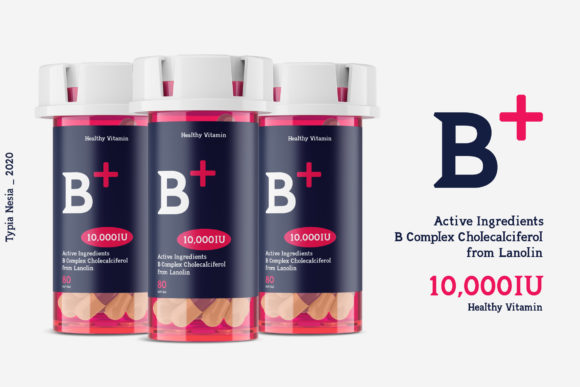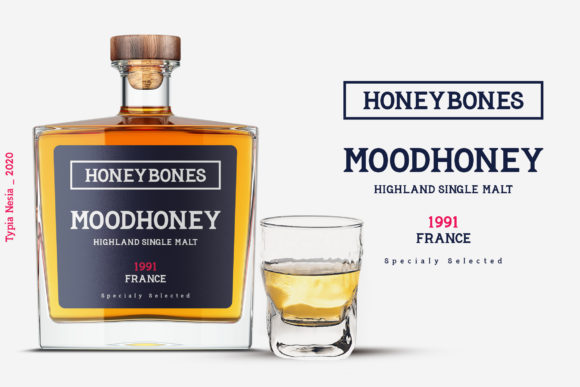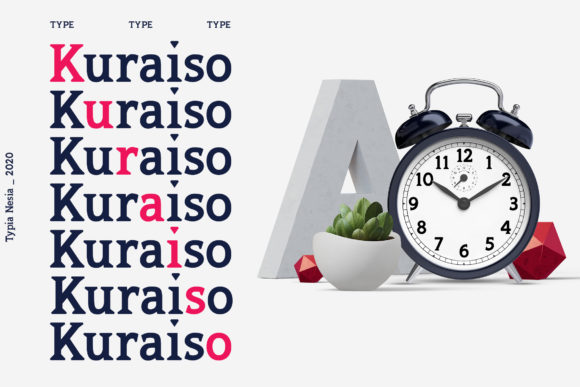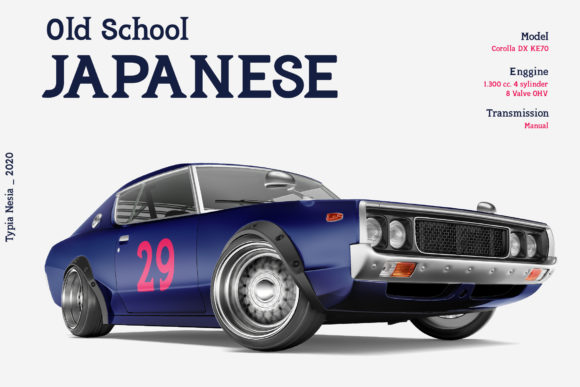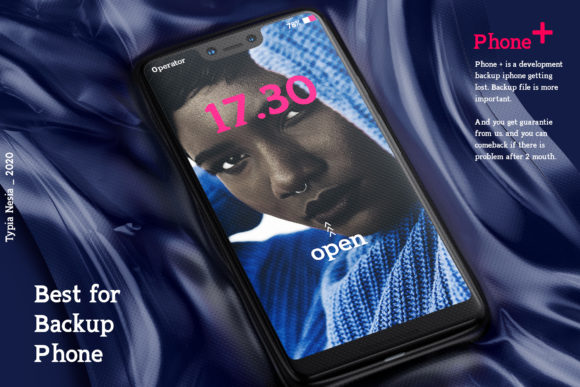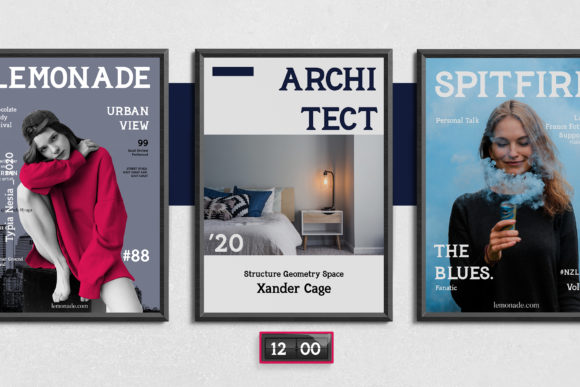
Introduction to Kuraiso Font
Imagine stumbling upon a design resource that elevates your creative project to new heights, effortlessly combining traditional charm with a modern twist. This is exactly what happens when you discover the Kuraiso Font, a masterfully crafted serif font that will leave your audience in awe. Whether you’re working on a high-end branding project or a personal art piece, Kuraiso Font is the perfect addition to your design arsenal.
| 📌 Product Name | Kuraiso Font |
| 👤 Author | Typia Nesia |
As a designer, you understand the importance of having the right tools at your disposal. Kuraiso Font offers a level of sophistication and elegance that’s hard to find in other fonts. With its well-balanced Latin details and distinctive contrasts, this font is a game-changer for any creative project. And the best part? It’s available for free download, making it an accessible design resource for designers of all levels.
Key Features of Kuraiso Font
- High-quality design resource suitable for creative projects with a unique aesthetic.
- Transparent background option allows for seamless integration into various design elements.
- Designed with a focus on versatility, making it an ideal choice for a wide range of creative projects.
- High-resolution font files ensure crisp and clear text display, even at larger sizes.
- Perfect for designers looking for a unique and eye-catching design resource.
Honest Review: Kuraiso Font
I recently stumbled upon the Kuraiso Font and decided to give it a try for my latest creative project. As a designer, I’m always on the lookout for high-quality design resources that can elevate my work. In this review, I’ll share my honest thoughts on this font.
- ✨ The Kuraiso Font has a beautiful, elegant design that works well for both print and digital applications.
- ✨ The font includes a transparent background option, making it easy to integrate into my designs.
- ⚠️ The font only includes a limited number of characters, which may not be suitable for longer texts or complex projects.
- ⚠️ The font is not as versatile as some other popular fonts, which may limit its use in certain creative projects.
Overall, I’m impressed with the Kuraiso Font, but I do wish it had a few more features. If you’re looking for a high-quality font for a creative project, I’d definitely recommend giving it a try. Just be aware of its limitations and whether they’ll fit your needs.
To get the most out of the Kuraiso Font, use it with a transparent background to create a seamless design. Experiment with different font sizes and styles to add visual interest to your project.